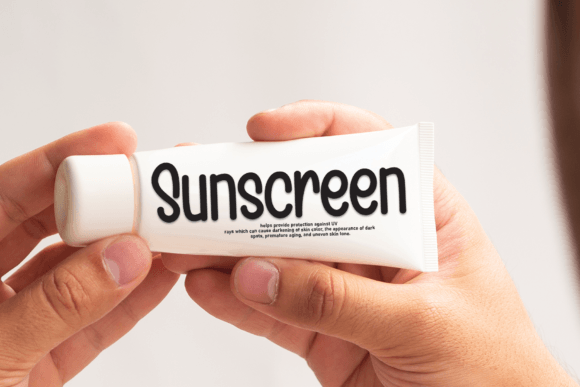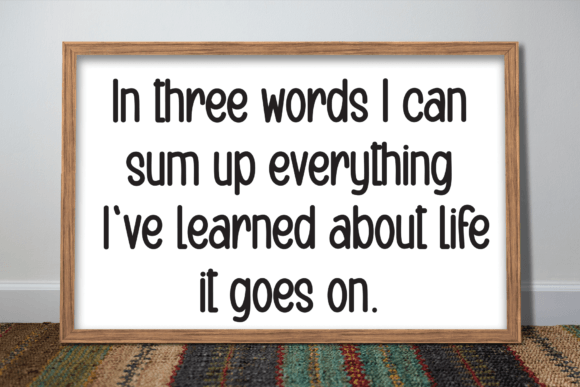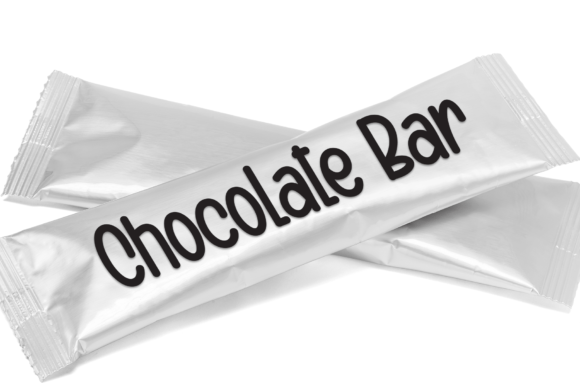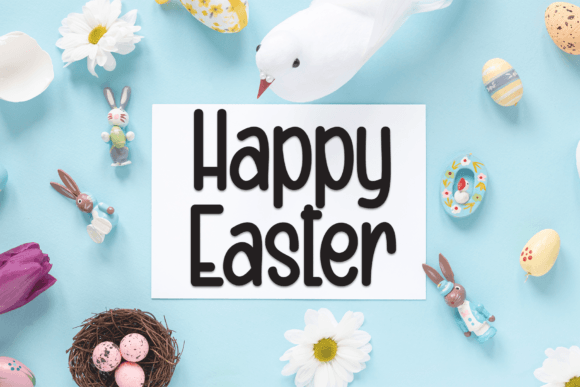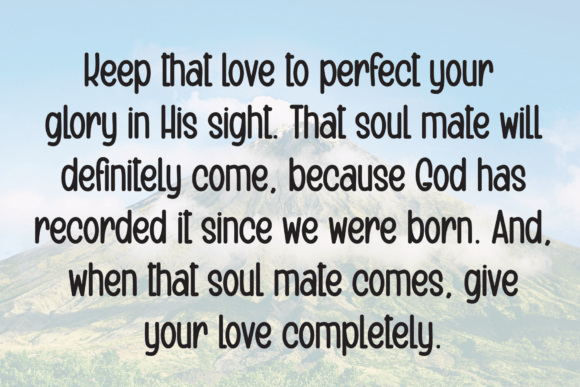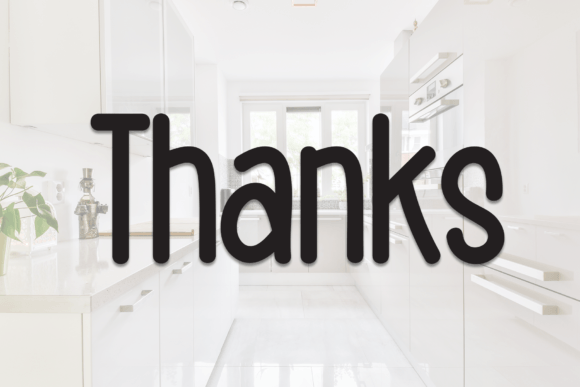
Introduction to Glossy Kitchen Font
Have you ever found yourself staring at a blank canvas, searching for the perfect font to bring your creative project to life? I’m sure many of us have been there, scrolling through endless options, trying to find the one that perfectly captures the essence of our design. For designers, the right font can be the difference between a good project and a great one.
That’s where the Glossy Kitchen Font comes in – a sweet and friendly handwritten font that’s sure to elevate any design. With its natural and unique style, this font is incredibly versatile and can be used in a wide range of creative projects. Whether you’re working on a graphic design, a logo, or a social media post, the Glossy Kitchen Font is a valuable design resource that’s sure to impress.
Key Features of Glossy Kitchen Font
- High-quality, free font suitable for various creative projects, including cooking blogs, recipe websites, and food-related designs.
- Features a transparent background, allowing for seamless integration with images and other design elements.
- Includes a large character set, covering multiple languages and providing a versatile design resource for various creative applications.
- Designed with a modern, sleek aesthetic, the Glossy Kitchen Font is perfect for adding a touch of sophistication to your designs.
Honest Review: Glossy Kitchen Font
One of the standout features of Glossy Kitchen Font is its high quality and modern design aesthetic. The font is perfect for creating eye-catching headings and titles in a variety of contexts, from food blogs to home decor websites. ✨ The transparent background option also gives designers the flexibility to use the font on a variety of backgrounds, adding an extra layer of customization.
Here are some of the things I liked about Glossy Kitchen Font:
- High-quality design and modern aesthetic
- Transparent background option for added customization
- Wide range of applications, from food blogs to home decor websites
However, I did encounter a few limitations while working with Glossy Kitchen Font: ⚠️
- Limited font sizes and styles available
- No built-in support for multiple languages
Overall, I’m impressed with Glossy Kitchen Font as a design resource. Its high quality and modern design aesthetic make it a great choice for designers working on creative projects. With a few tweaks to address some of the limitations, I have no doubt that Glossy Kitchen Font will continue to be a popular choice among designers.
Tips for Getting the Most Out of Glossy Kitchen Font
To get the most out of Glossy Kitchen Font, use it in creative projects that require a high-quality design resource. You can also use the font with a transparent background to create a more subtle look. Experiment with different font sizes, colors, and styles to find the perfect combination for your design.
Glossy Kitchen Font is perfect for a variety of design projects, including:
Logo design
Presentation design
Report design